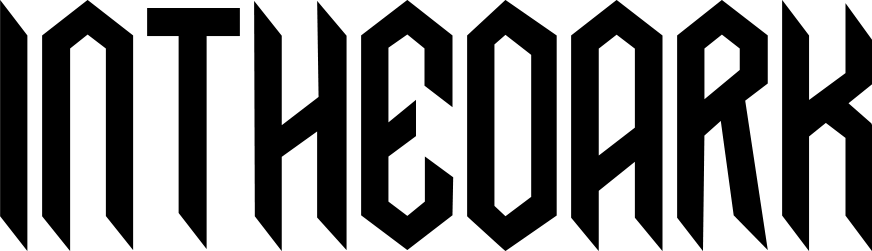
Inthedark Font
Inthedark has sharp edges and bold lines making this edgy tattoo font have a grunge and heavy vibe that can be useful for band names, album covers, posters, t-shirts, logos, etc. You get only the uppercase of that alphab…
Inthedark has sharp edges and bold lines making this edgy tattoo font have a grunge and heavy vibe that can be useful for band names, album covers, posters, t-shirts, logos, etc. You get only the uppercase of that alphabet and numbers and a few other characters in this metal font.
Hi, i’m Arthy today i want to share Inthedark, a decorative display font suitable for any kind creative project. Music project, movie project, you name it. Inthedark has uppercase and numbers, with update possibilty. Do note hesitate to ask for any question. Any donation are very welcome. Thank you for your support, have a great day.